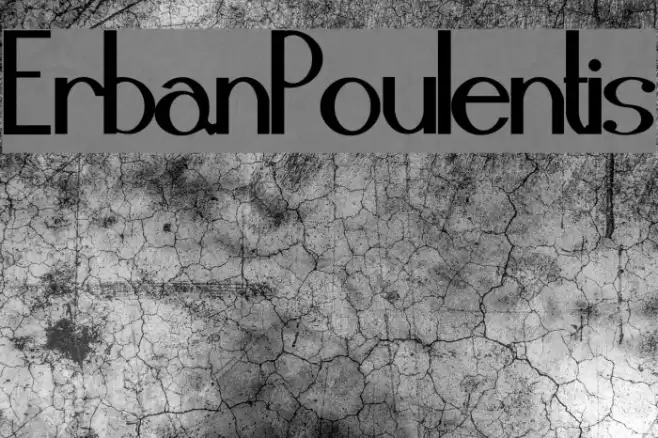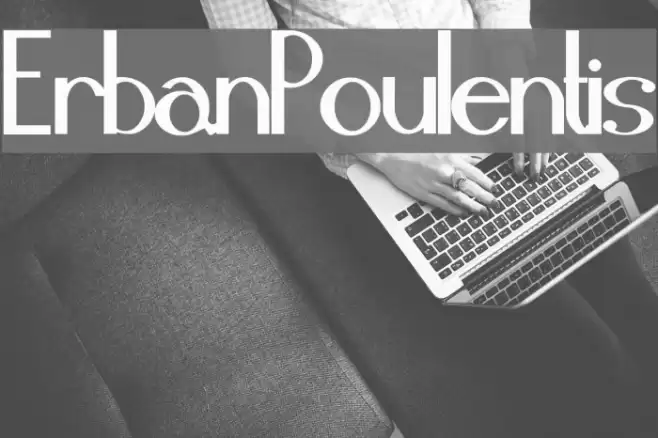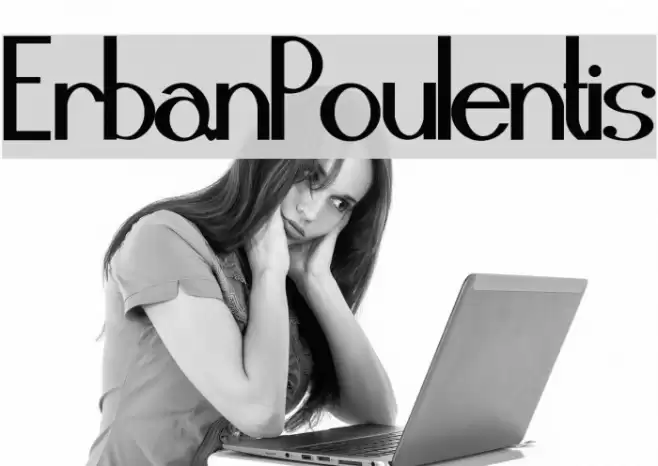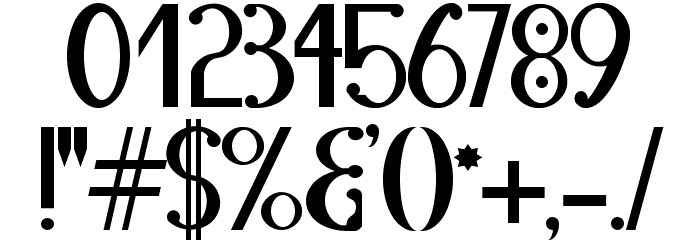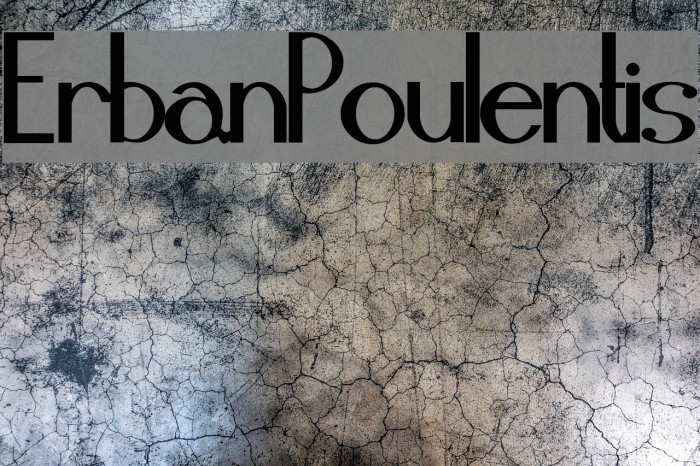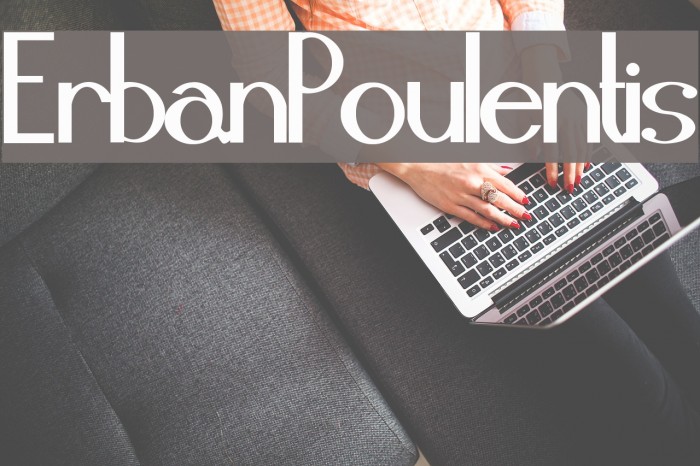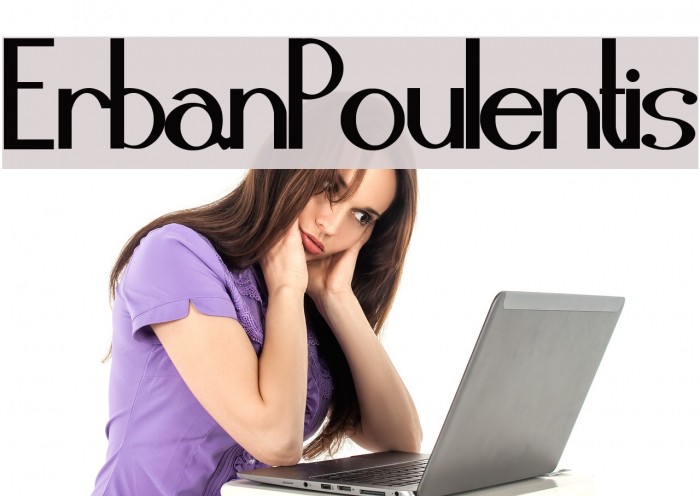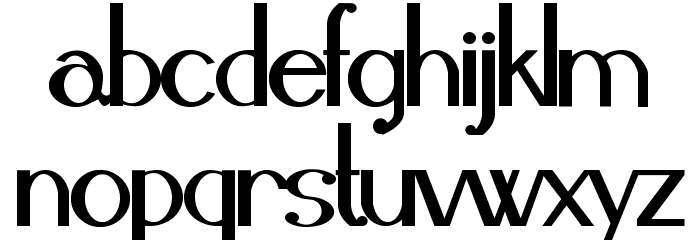
ErbanPoulentis Font
ErbanPoulentis Description
This font features a bold and striking design with high contrast between thick and thin strokes. The uppercase letters are tall and narrow, giving a modern and sophisticated appearance. The lowercase letters maintain a consistent style, with rounded edges that add a touch of elegance. The numerals are distinct and easy to read, while the special characters are creatively designed, adding to the font's unique personality. Overall, this font is both stylish and versatile, suitable for various design needs.
A bold, high-contrast font with a modern and elegant style from Uncategorized fonts.
- Proposed Projects: Ideal for branding, advertising, and editorial design projects that require a modern and sophisticated look.
- Use Case: Headlines, Logos, Branding